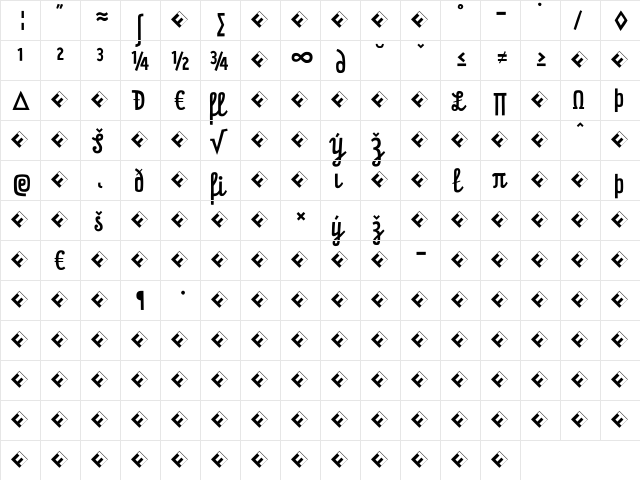
PraterScriptOne-RegularExp Regular
| Foundry | Steffen Sauerteig, Henning Wagenbreth, published by Fontshop International for the FontFont library |
Design Context for PraterScriptOne-RegularExp Typeface
PraterScriptOne-RegularExp brings a calligraphic fluidity to the page — its connecting strokes and expressive curves give it an unmistakably human quality.